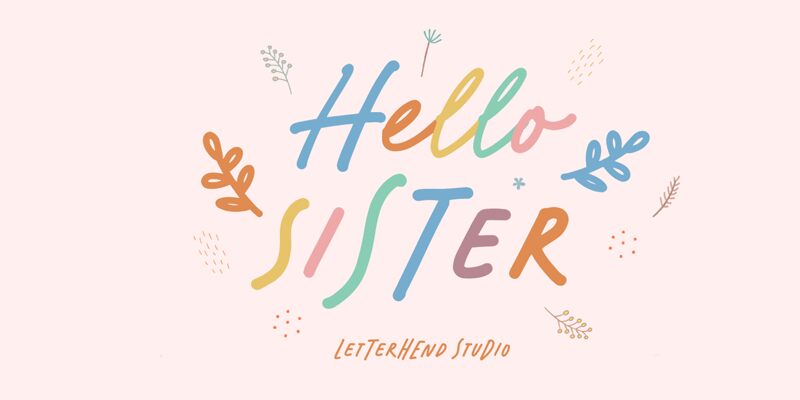
Hello Sister Sans by Letterhend Studio is a stunning, handcrafted typeface that exudes warmth and approachability. With its semi-light weight and condensed width, this font is perfect for projects that call for a touch of sophistication without sacrificing readability. Its handwritten style lends itself well to a wide range of creative endeavors, from elegant wedding invitations to playful product packaging. Whether you're designing logos, headlines, or body text, Hello Sister Sans will help you make a lasting impression. So why settle for ordinary when you can greet the world with Hello Sister Sans?